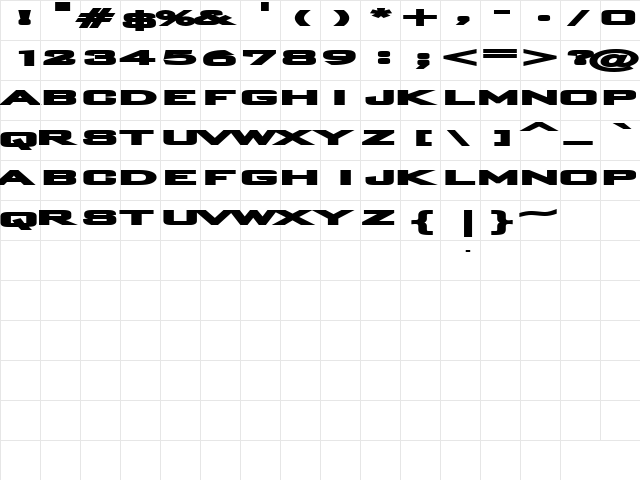
Plain O Matic Regular
Design Context for Plain O Matic Typeface
Plain O Matic takes a measured approach to typography — its balanced proportions and neutral character make it a reliable workhorse for both digital and print work.
Pro Tip: Pair Plain O Matic with a font of contrasting weight or personality to build a more expressive typographic hierarchy.